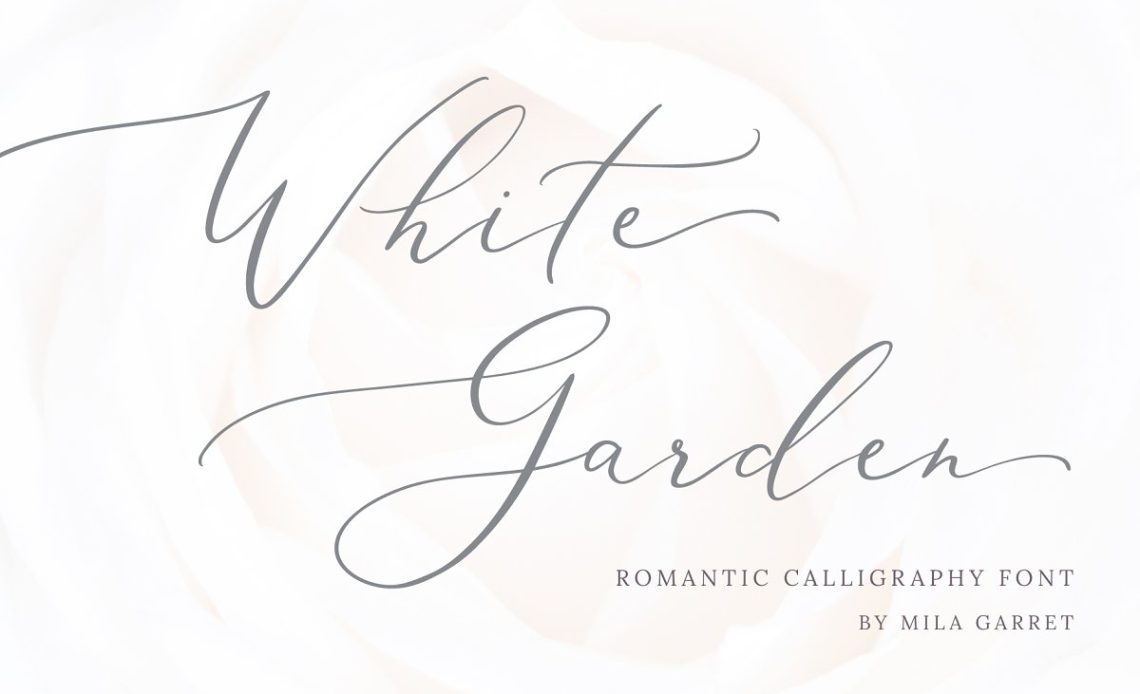
Welcome to the world of White Garden Calligraphy Logo Font, the best font for menu website! This font family has been created by the talented Mila Garret to add a touch of elegance and luxury to your projects. Whether you need it for your wedding stationery, upscale packaging, or website, White Garden will certainly elevate your design to the next level.
With a full set of standard alphabet and punctuation, plus two extra sets of alternate capitals, beginning and ending swashed lowercase, ligatures, and contextual alternates, this font family offers a wide range of options to customize your designs. In addition, you'll find extra stylistic alternates, standard and wide versions, 11 bonus ampersand styles, and extra numerals for names.